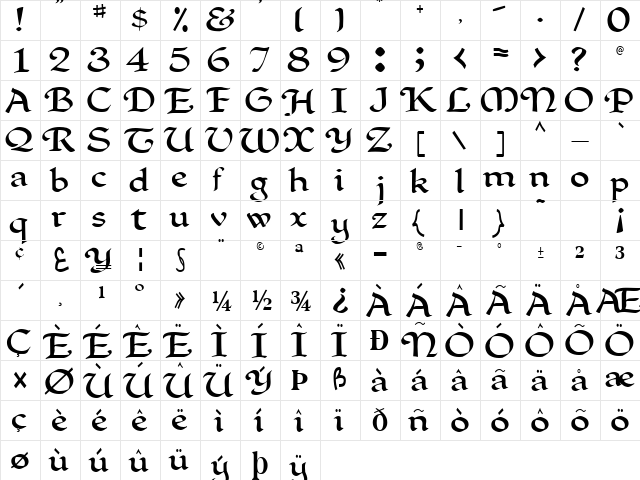
Clark Regular
Design Context for Clark Typeface
Clark is a composed and adaptable typeface that performs quietly and consistently across a wide range of design contexts.